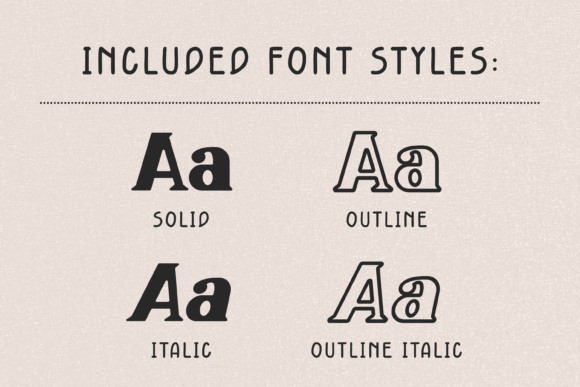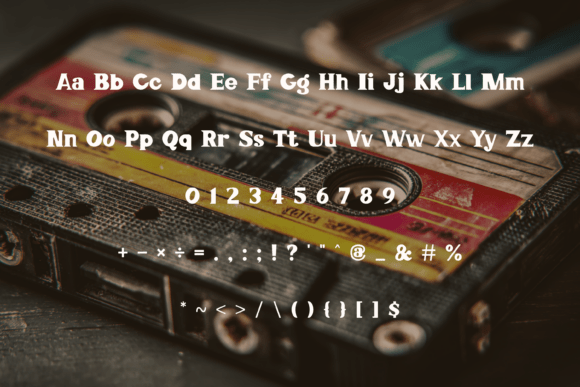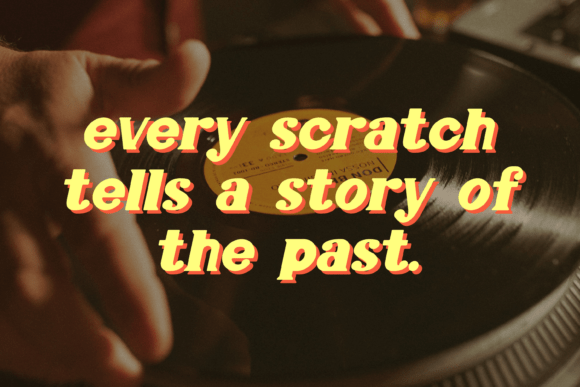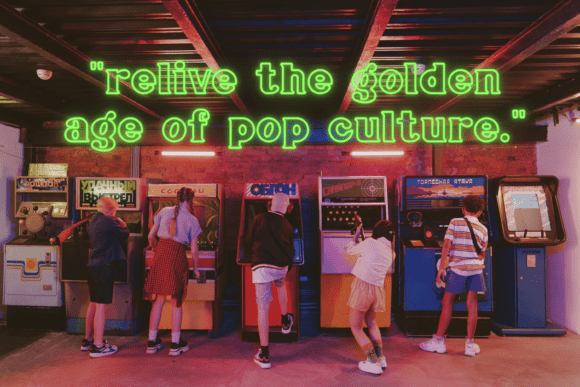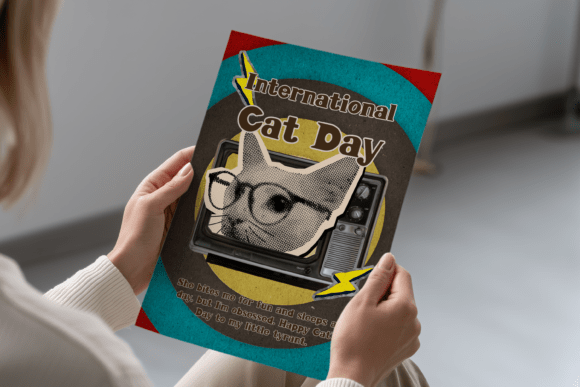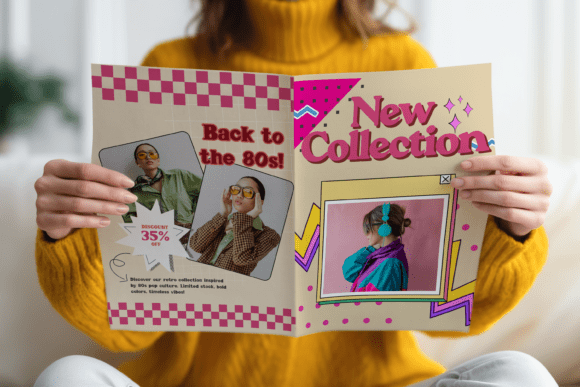
Groove into Your Next Project with Bongo BlahBlah Font
Are you looking for a font that embodies the fun, carefree spirit of the 1970s? Look no further than Bongo BlahBlah, a chunky display serif that’s sure to bring a touch of nostalgia to your next project. With its heavy visual weight and soft, rounded serifs, this font is the perfect choice for designers and crafters who want to add a dash of retro flair to their work.
The Soul of Vintage Vinyl Records and Psychedelic Soul Posters
Bongo BlahBlah font is inspired by the iconic designs of the 1970s, from vintage vinyl records to psychedelic soul posters. Its thick, approachable letterforms evoke the feeling of a bygone era, when music and art were a vital part of everyday life. With Bongo BlahBlah, you can capture the essence of this soulful vibe and bring it to your next project.
Perfect for Bold Headlines and Retro Branding
One of the key features of Bongo BlahBlah font is its heavy visual weight, which makes it perfect for bold headlines and titles. The font’s chunky letterforms provide a solid foundation for your message, ensuring that it feels established, rhythmic, and full of character. Whether you’re working on a retro branding project, album cover art, or funky cafe signage, Bongo BlahBlah is the ideal choice.
Best Use Cases for Bongo BlahBlah Font
So, where can you use Bongo BlahBlah font to maximum effect? Here are some ideas to get you started:
- Retro branding: Create a vintage-inspired brand identity with Bongo BlahBlah font, perfect for companies that want to evoke a sense of nostalgia and fun.
- Album cover art: Give your music project a retro vibe with Bongo BlahBlah font, ideal for album covers, EPs, and singles.
- Funky cafe signage: Add a touch of 1970s flair to your cafe or restaurant with Bongo BlahBlah font, perfect for menus, signs, and promotional materials.
- Bold social media headers: Make a statement on social media with Bongo BlahBlah font, great for creating eye-catching headers and graphics.
Why Choose Bongo BlahBlah Font?
So, why should you choose Bongo BlahBlah font for your next project? Here are just a few reasons:
- Unique and distinctive: Bongo BlahBlah font has a one-of-a-kind look that’s sure to set your project apart from the crowd.
- Easy to read: Despite its chunky letterforms, Bongo BlahBlah font is surprisingly easy to read, making it perfect for headlines and titles.
- Versatile: Bongo BlahBlah font can be used in a variety of contexts, from digital projects to print materials.
Get Ready to Groove with Bongo BlahBlah Font
In conclusion, Bongo BlahBlah font is a fantastic choice for designers and crafters who want to add a touch of 1970s nostalgia to their projects. With its chunky letterforms, soft serifs, and heavy visual weight, this font is perfect for bold headlines, retro branding, and funky designs. So why not give Bongo BlahBlah font a try and see how it can bring your next project to life?